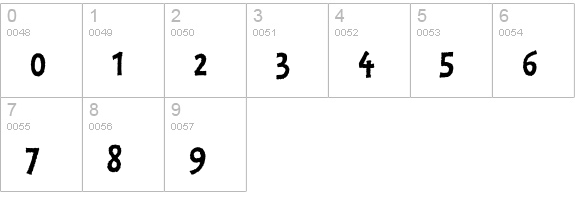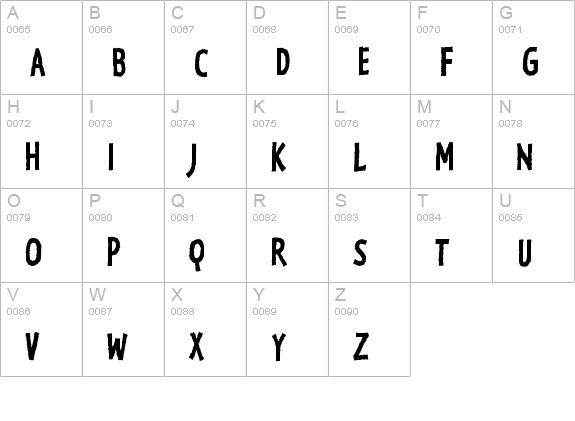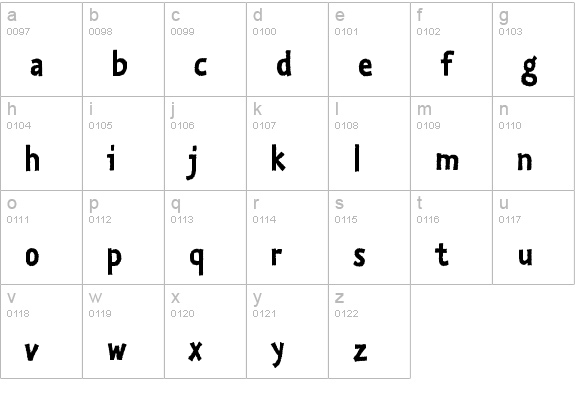
Kosmik-BoldThree font is a modern and stylish typeface that exudes a sense of boldness and sophistication. Its strong and clean lines make it perfect for a variety of design projects, from logos to headlines to branding materials. The font's distinctive look sets it apart from the rest, making it a great choice for those looking to make a statement. What's even better is that Kosmik-BoldThree font is available for free download at FontsMarket.com. This means that you can easily access this high-quality font without having to spend a dime. Whether you're a designer, a business owner, or just someone looking to add a touch of elegance to your projects, Kosmik-BoldThree font is sure to impress. Download it today and elevate your designs to the next level.